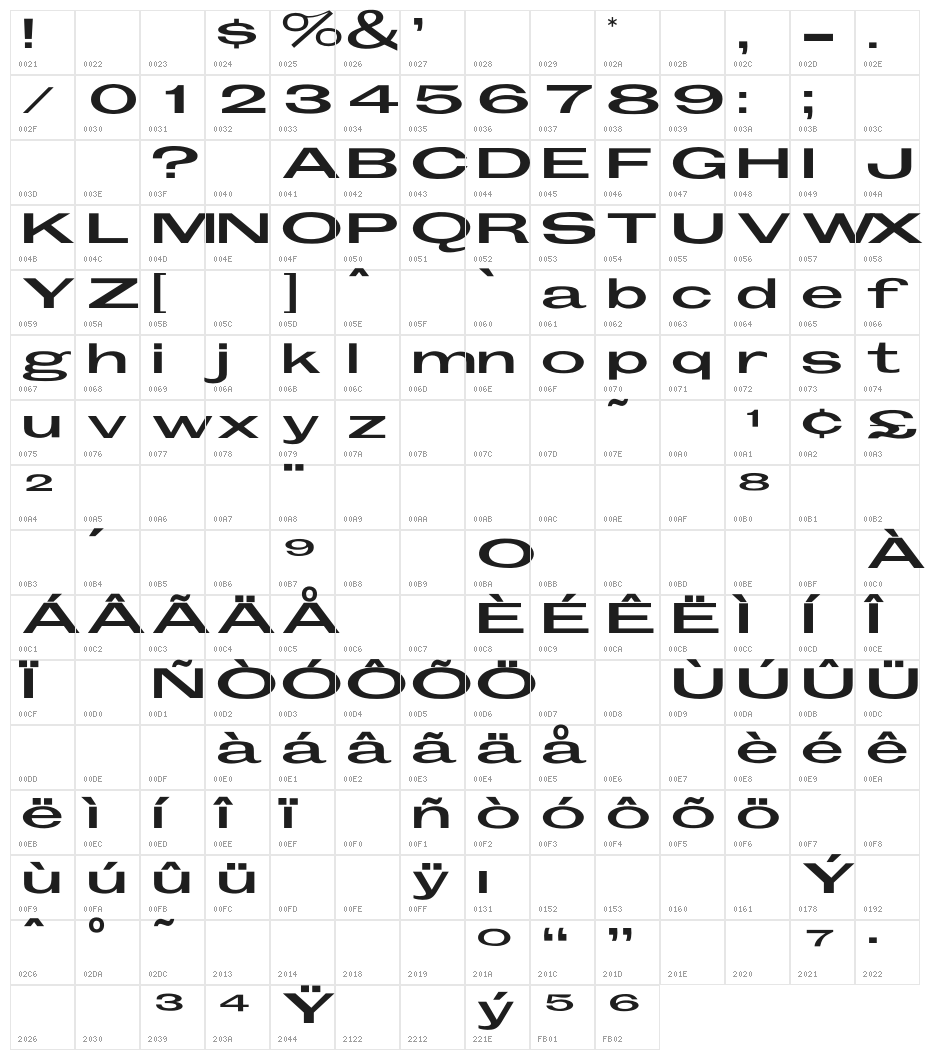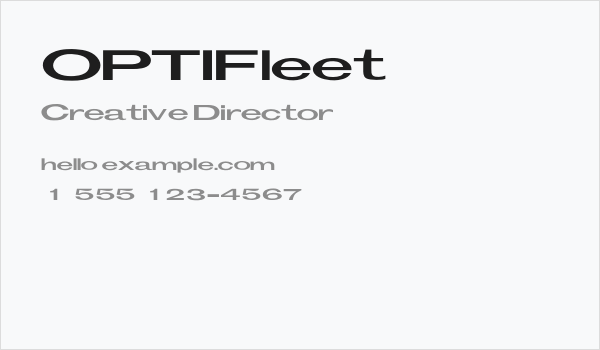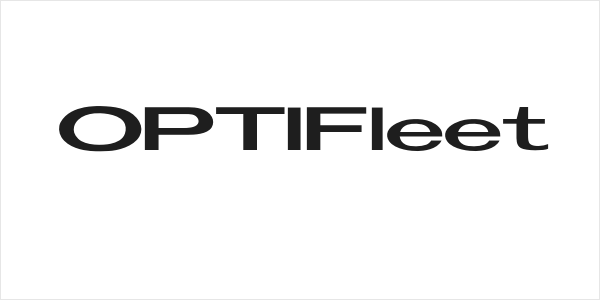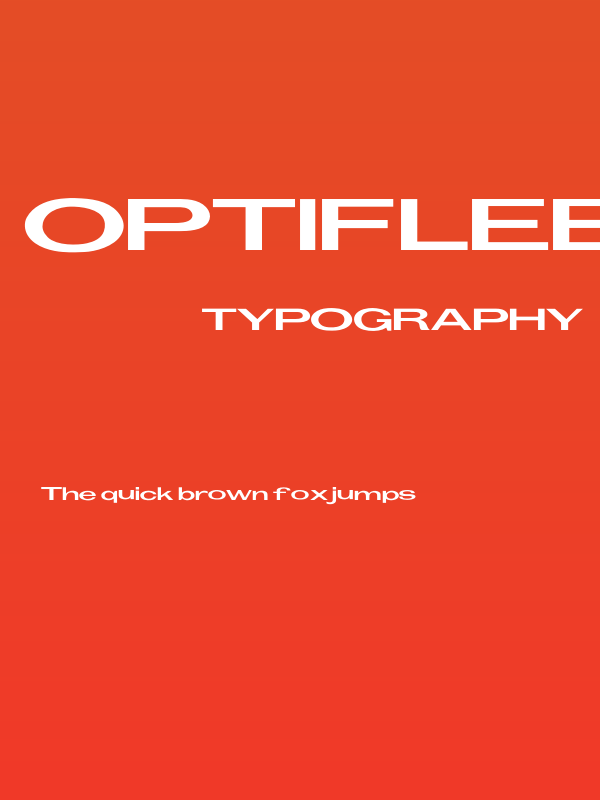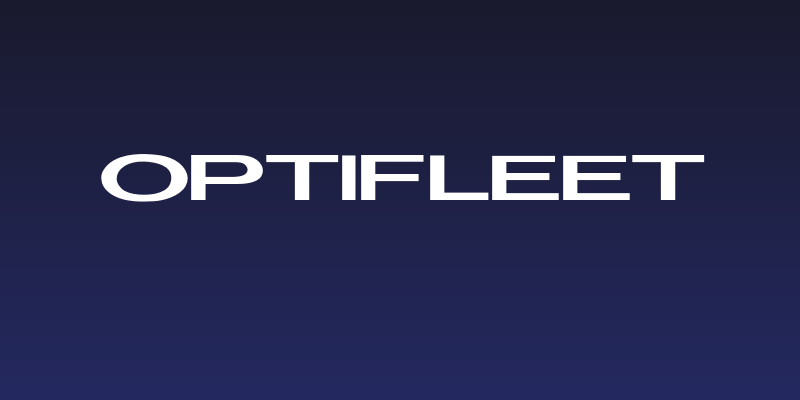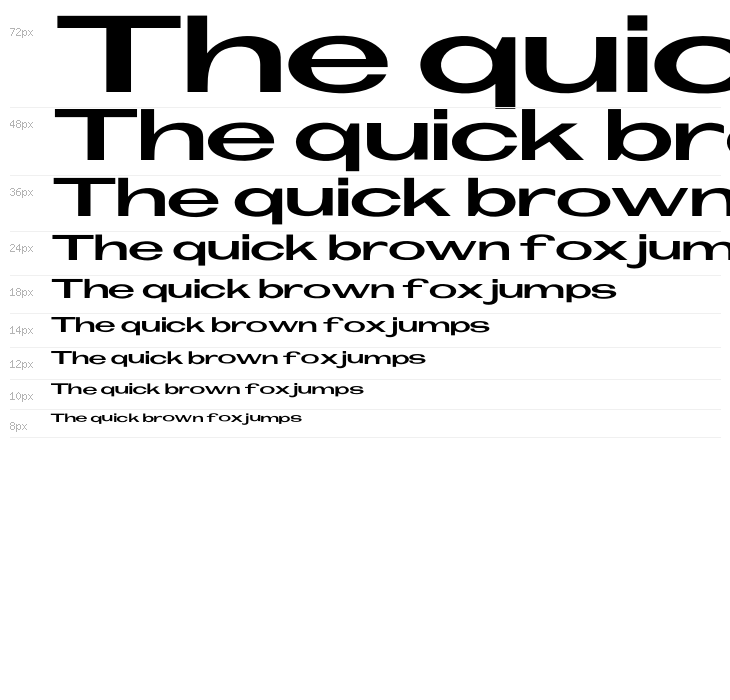
OPTIFleet Font
OPTIFleet Description
This font features a bold and modern sans-serif design, characterized by clean lines and a geometric structure. The uppercase letters are uniform in height, with a slight curvature that adds a touch of elegance. The lowercase letters maintain a consistent style, with rounded edges that soften the overall appearance. The numerals are clear and legible, making them suitable for various applications. Special characters are well-defined, ensuring versatility in design projects. The font's overall aesthetic is sleek and contemporary, making it ideal for modern branding and digital interfaces.
| Use Case | Headlines, Logos, Digital Interfaces |
| Proposed Projects | Ideal for branding, digital interfaces, advertising, and editorial design. |